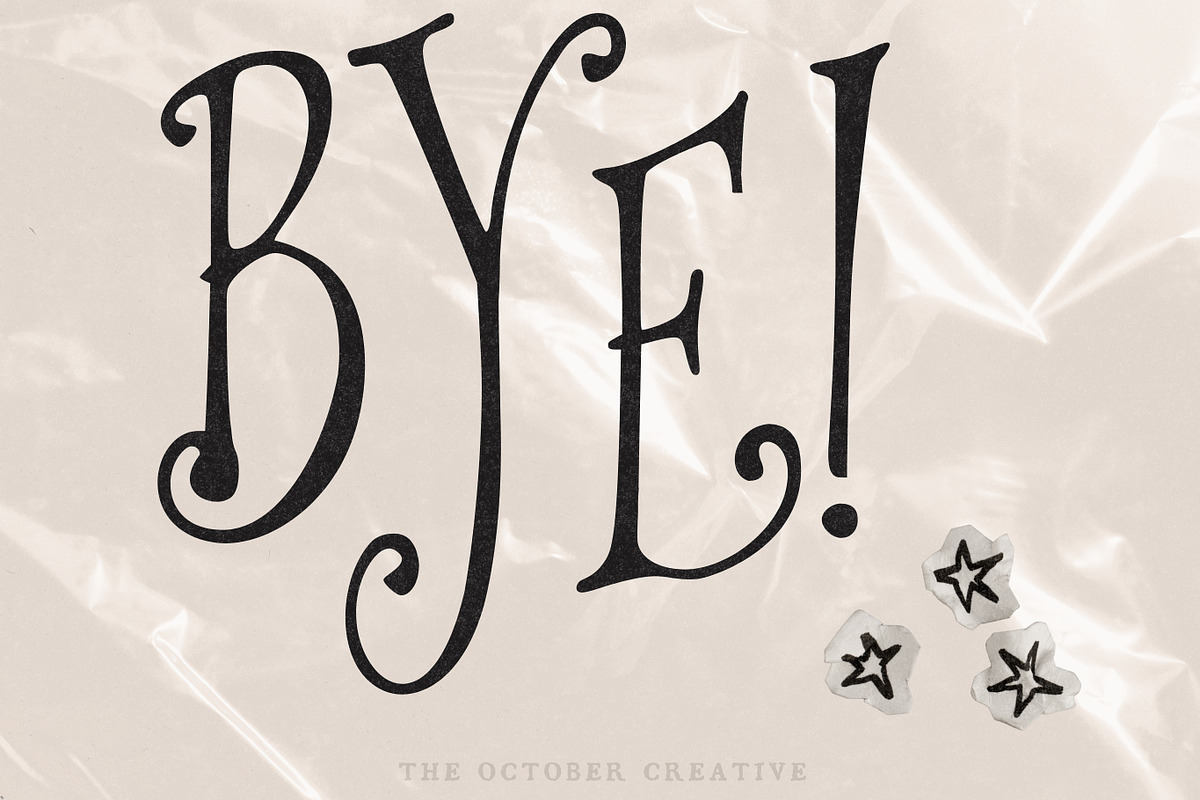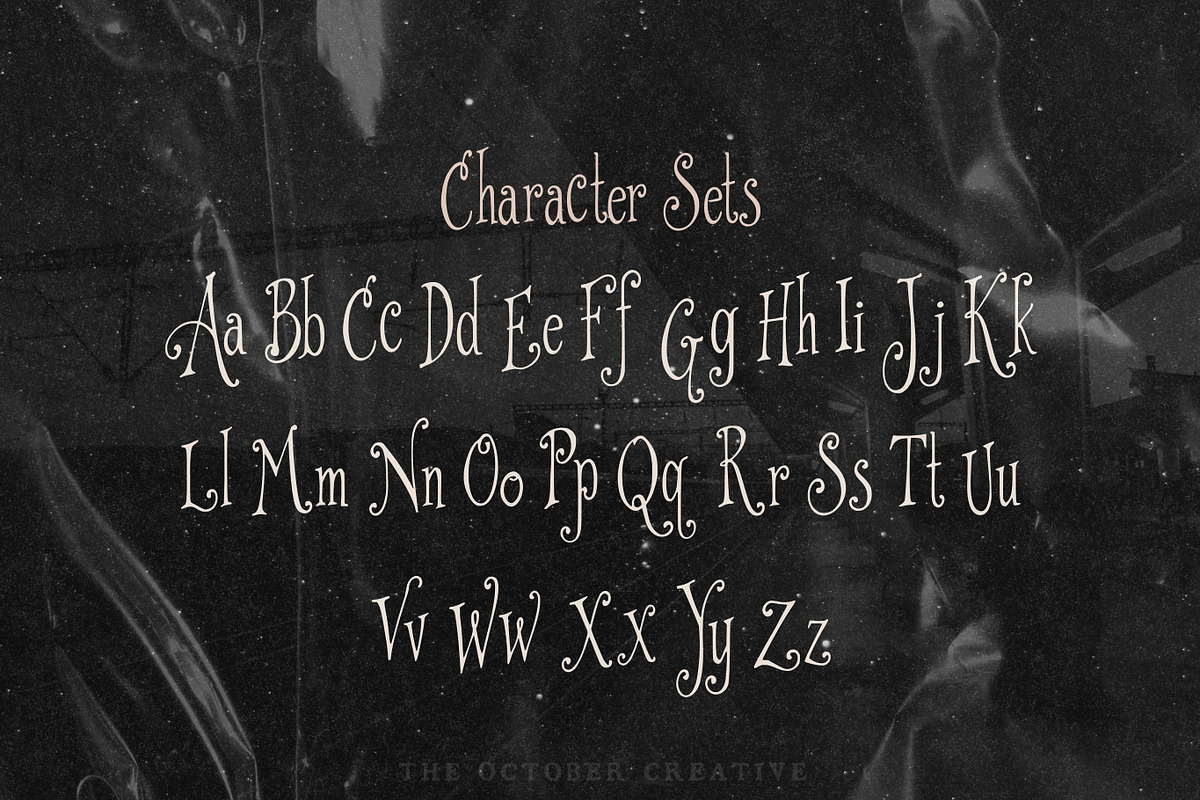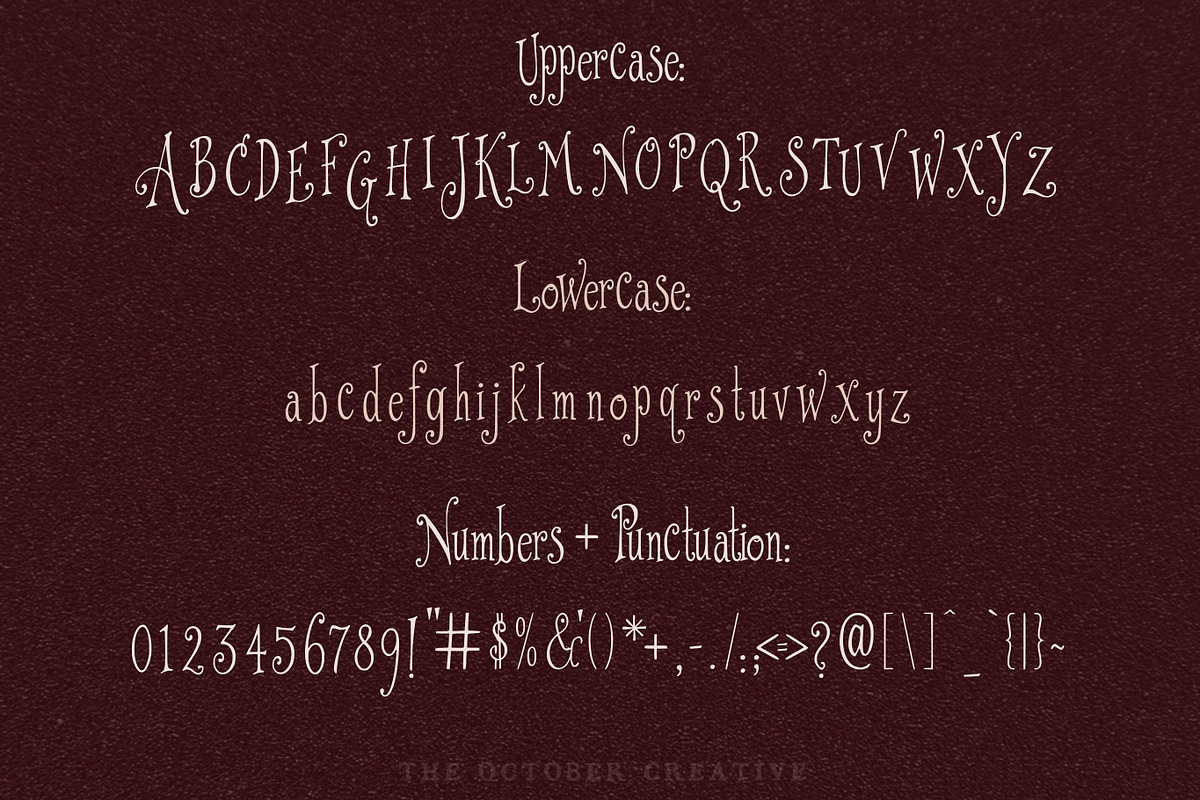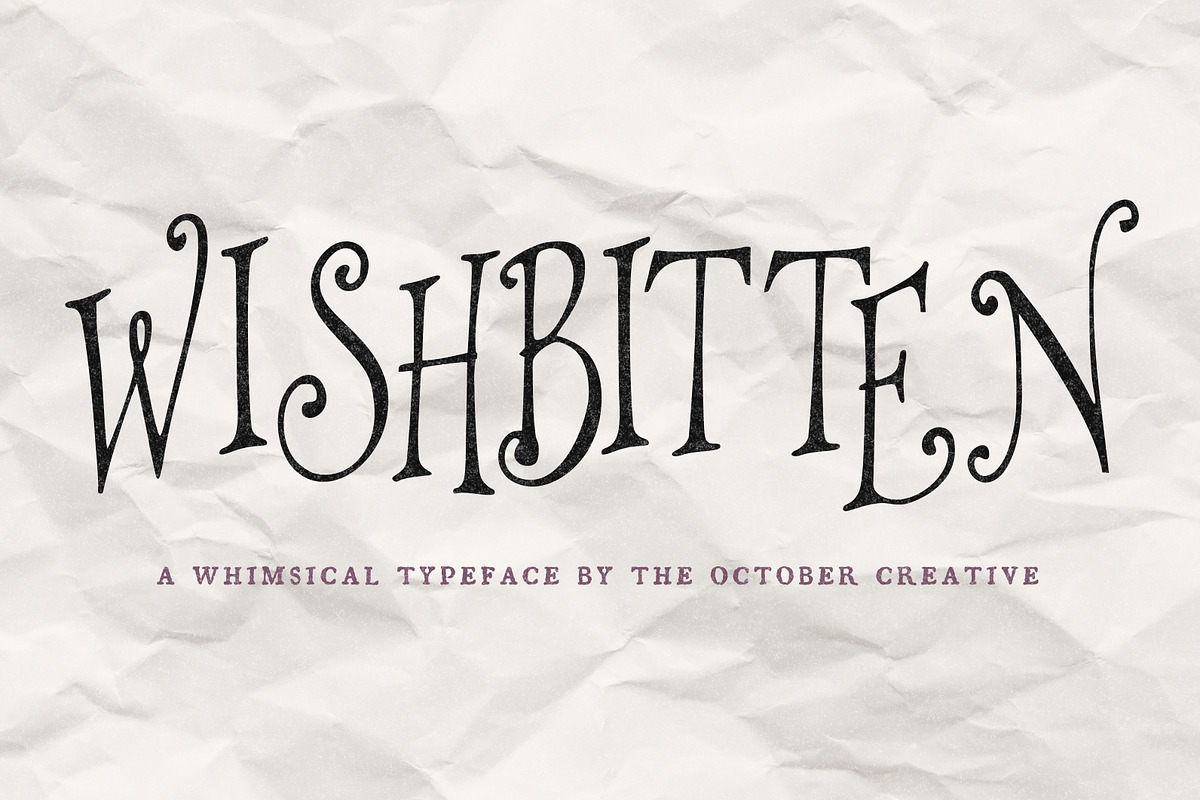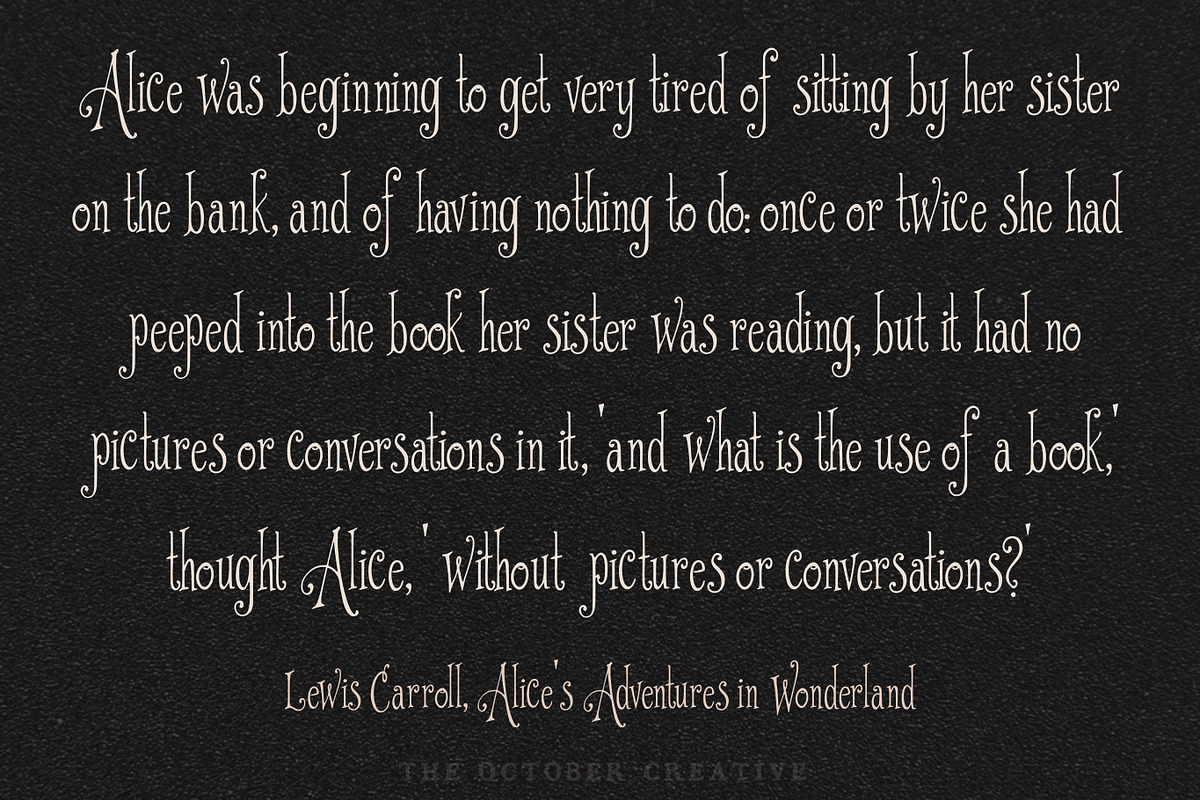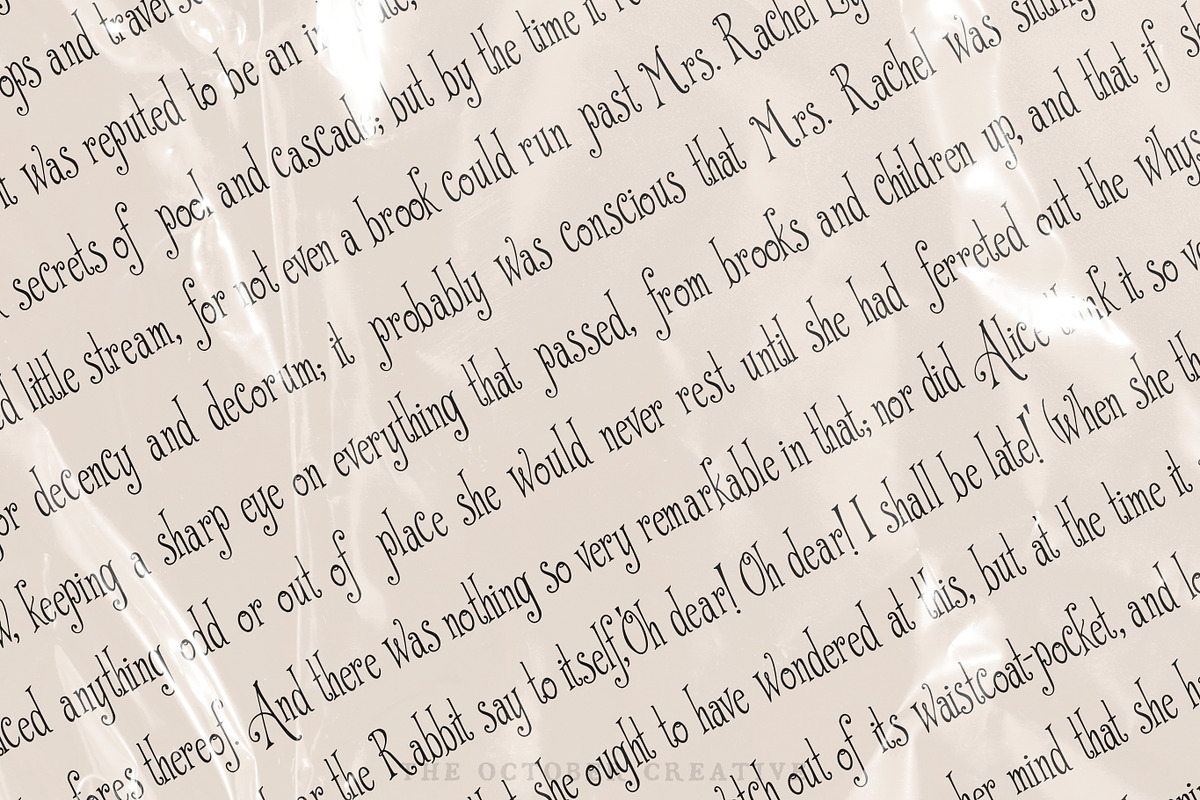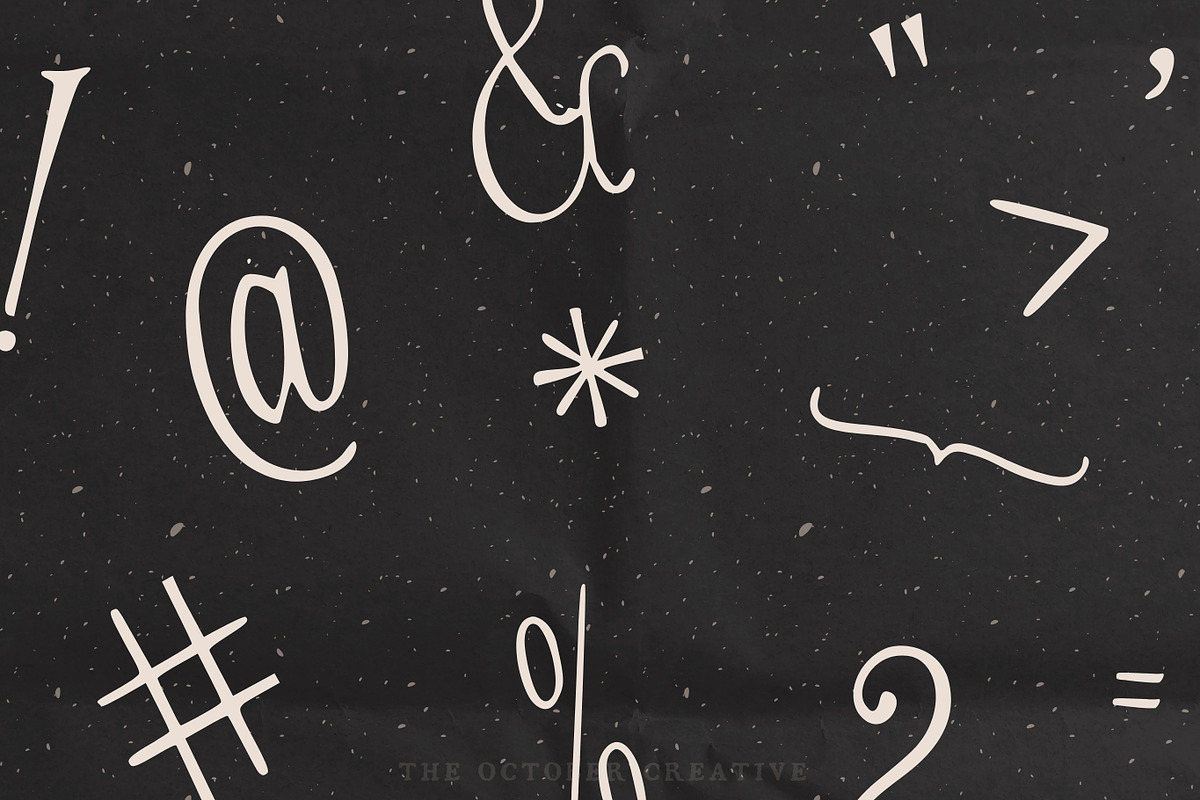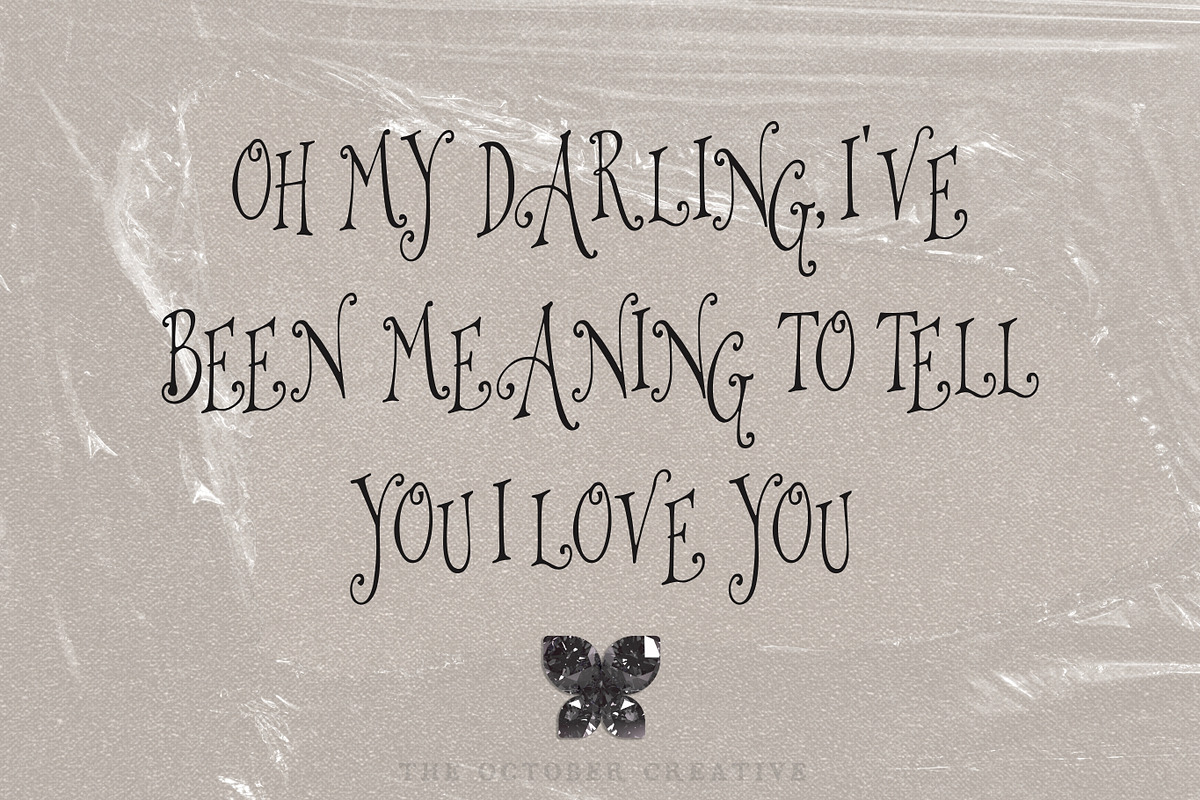
Wishbitten Storybook Serif Font
Wishbitten is a tall, condensed storybook serif with curling swashes on the capitals and a slight wobble in every stroke. It's built for titles: fantasy book covers, fairy tale headings, wine labels, and theater programs.
CHARACTER SET
Uppercase A to Z, lowercase a to z, numerals 0 to 9, and every standard keyboard punctuation mark and symbol: ! " # $ % & ' ( ) * + , - . / : ; < = > ? @ [ \ ] ^ _ ` { | } \~
Curly quotes and apostrophes (‘ ’ “ ” ‚ „), en and em dashes, an ellipsis, and a bullet.
Accented letters: À Á Â Ã Ä Å Ç È É Ê Ë Ì Í Î Ï Ñ Ò Ó Ô Õ Ö Ù Ú Û Ü and their lowercase forms.
LANGUAGES SUPPORTED
English, plus the accented vowels, Ñ, and Ç used in names and everyday words in Spanish, French, Italian, Portuguese, German, and Dutch. Not included: ß, Æ, Ø, Œ, and the upside-down ¿ and ¡.
SPECIAL CHARACTERS
There are no hidden alternates or ligatures, so every character types straight from the keyboard. Accented letters type with your keyboard's usual accent shortcuts (on a Mac, hold down the letter), or you can insert them from the Glyphs panel in your design software, the Character Viewer on a Mac, or Character Map on Windows.